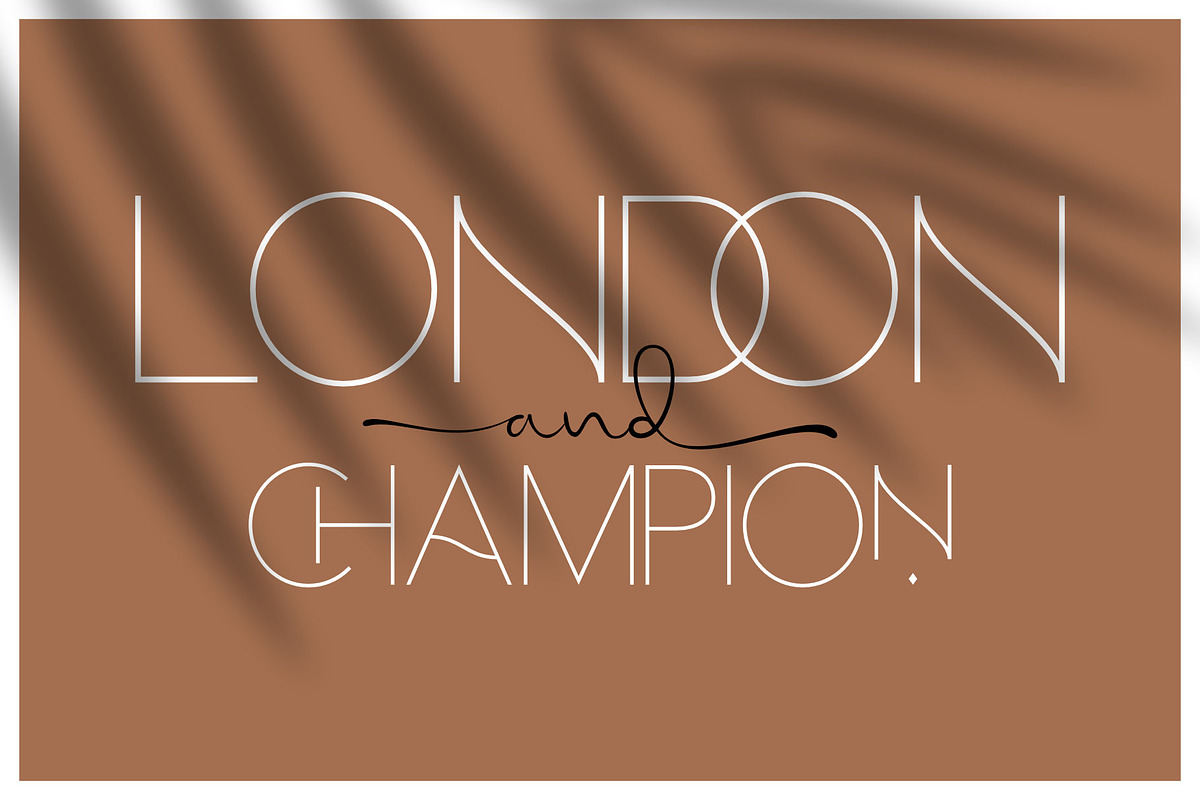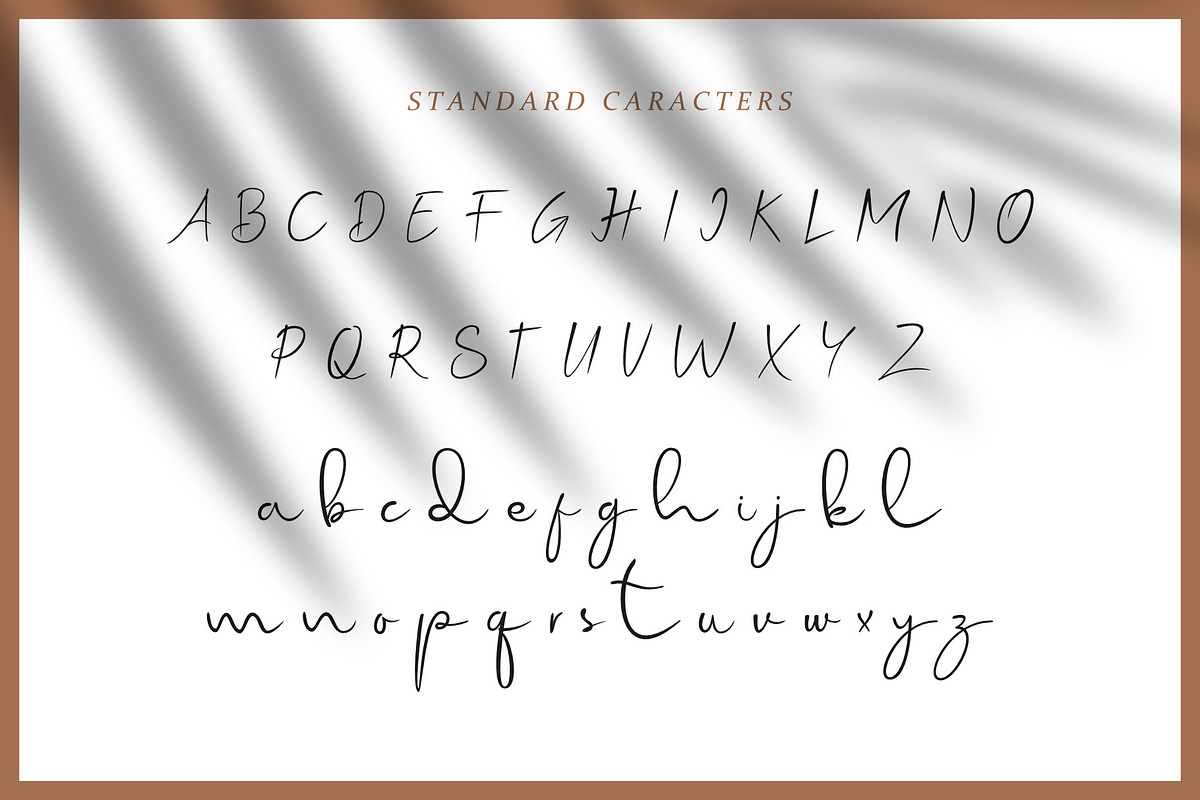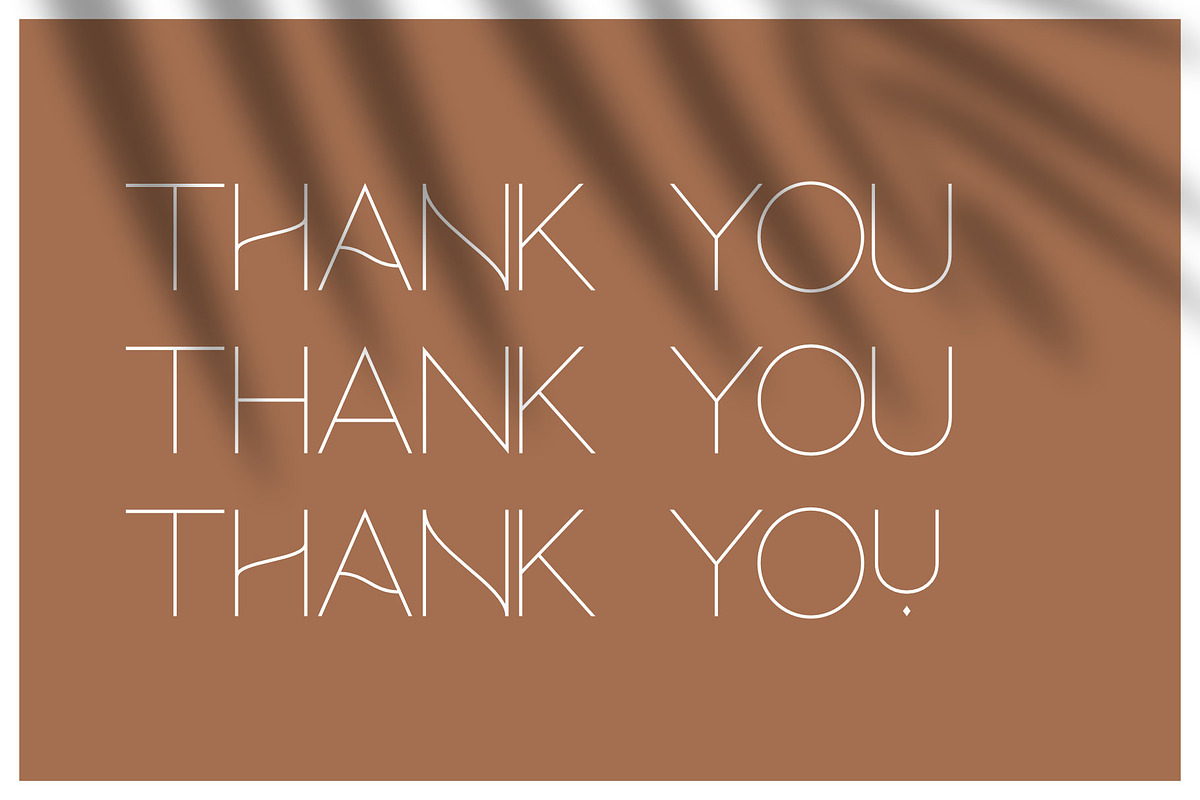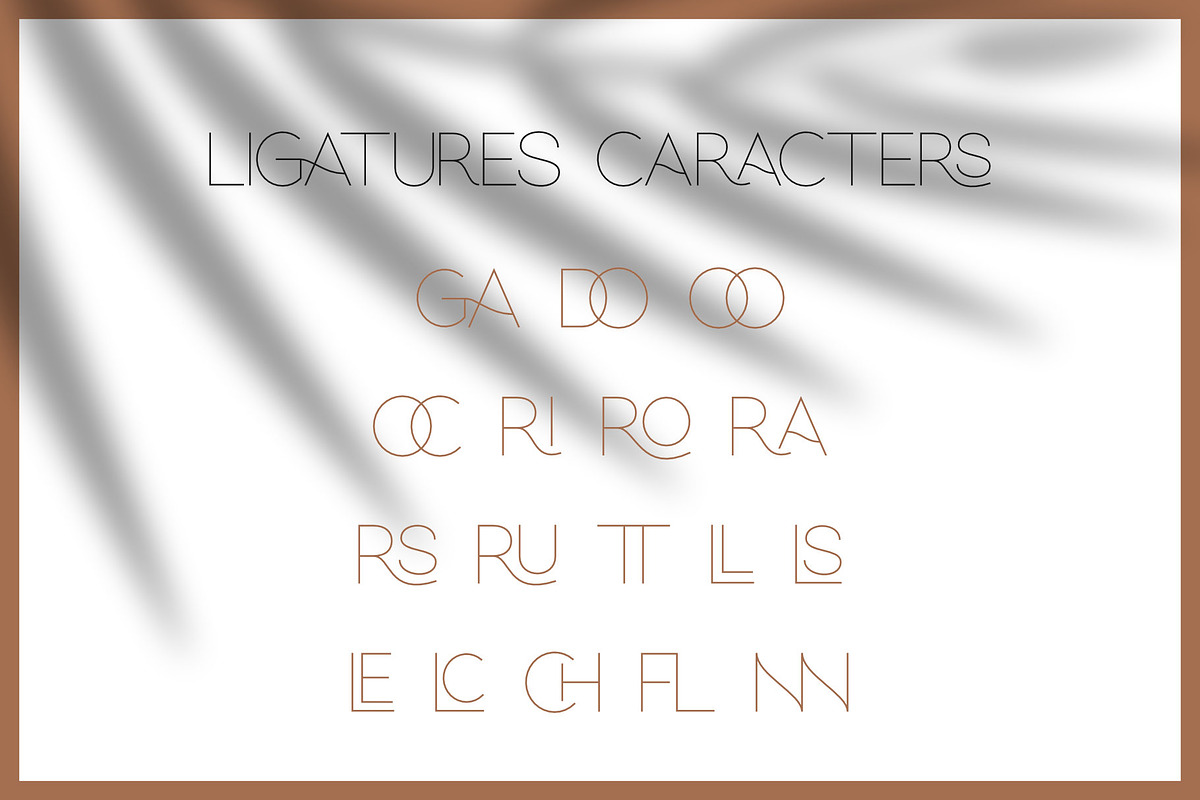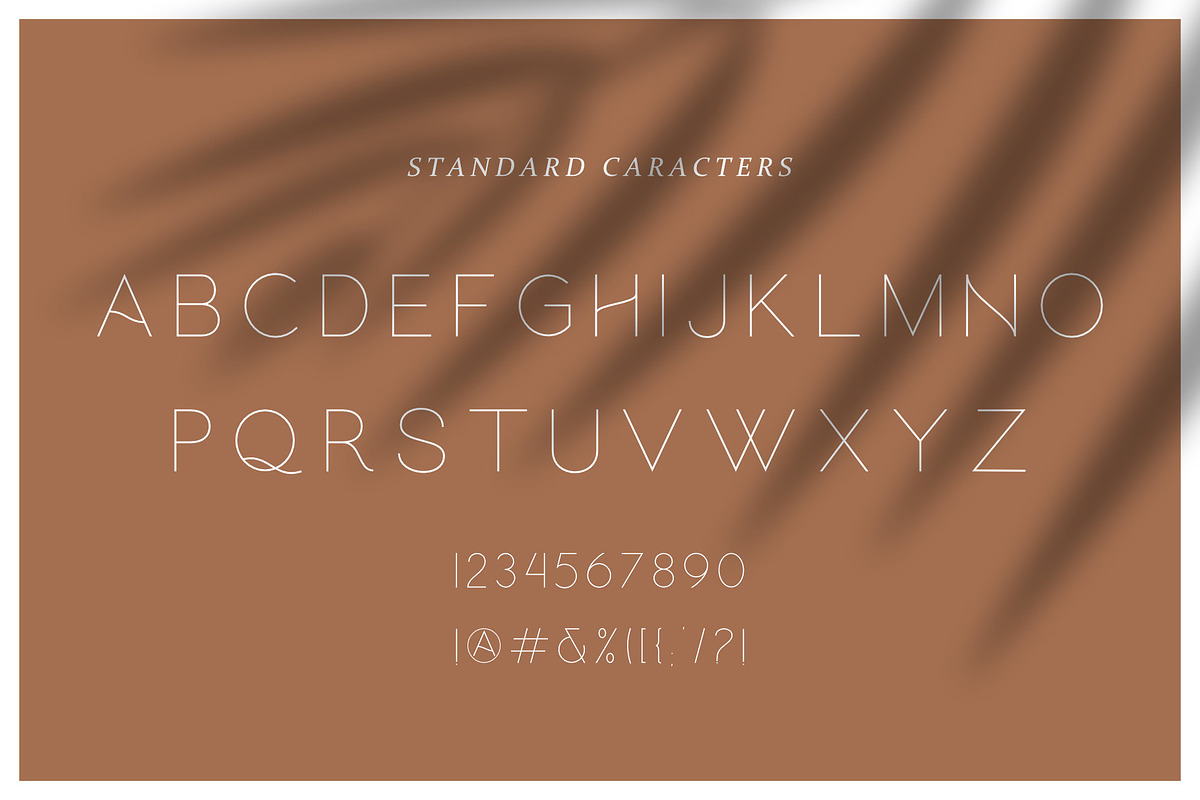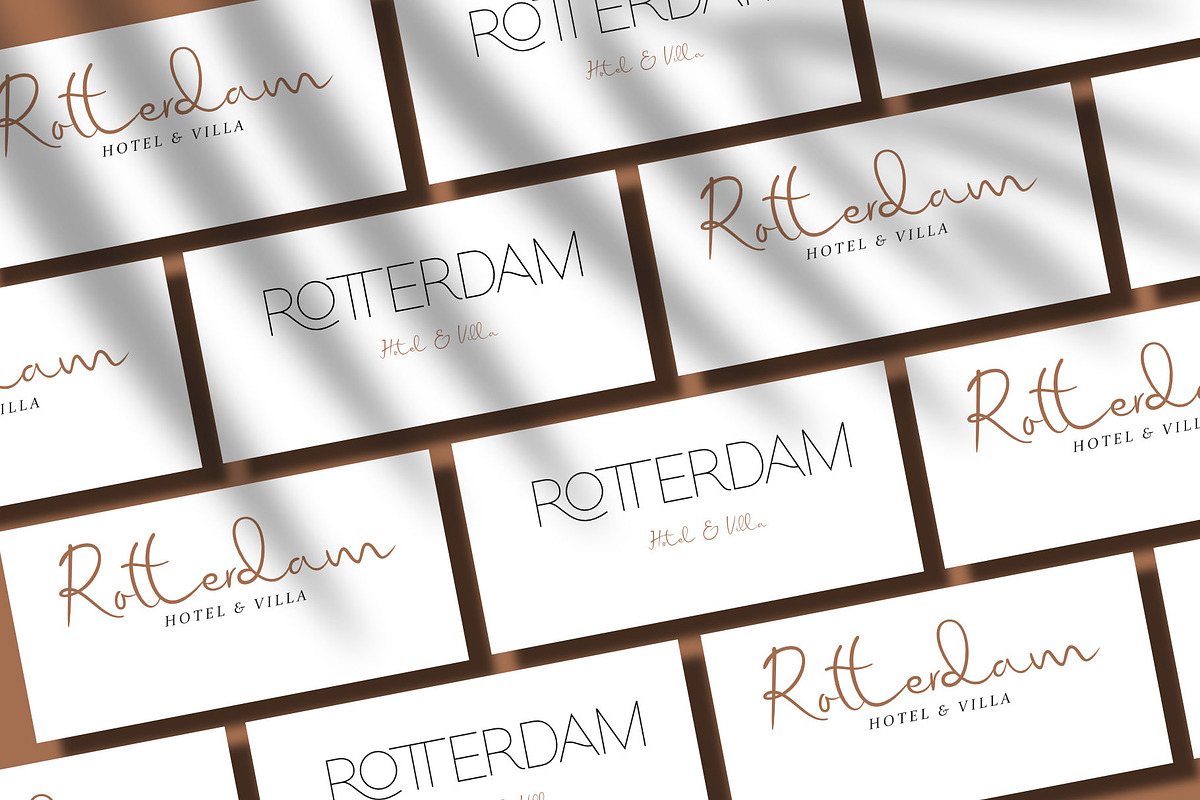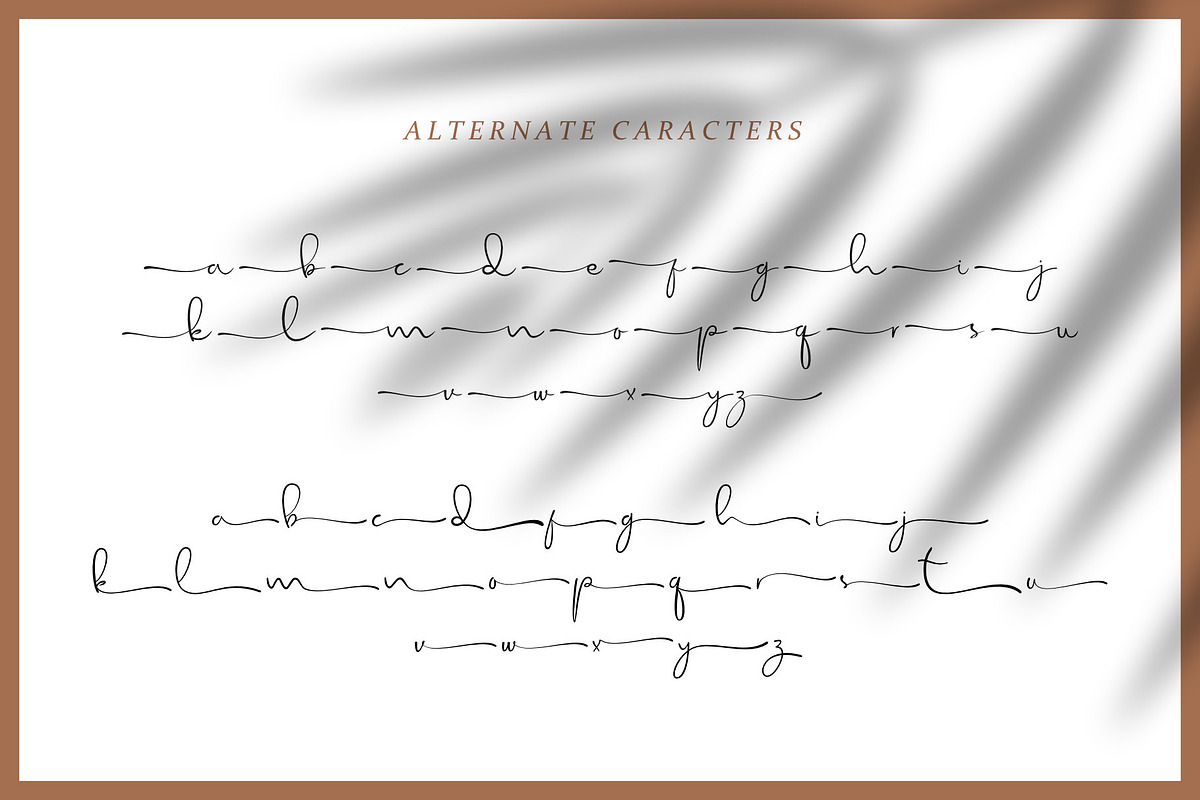
Hello Galleria Modern Elegant Font
Hello Galleria is a chic and versatile font duo that perfectly blends modern elegance with a touch of vintage charm. Featuring a clean, geometric sans serif and a stylish handwritten script, this set is designed for creative branding, standout logos, and everything from fashion to wedding designs.
The sans serif brings a bold, minimal feel—sleek, structured, and perfect for modern logo work. Paired with the soft, grunge-inspired script, it adds a handwritten edge that feels both luxurious and approachable. Whether you're going for retro stamp-style vibes or polished luxury branding, Hello Galleria has the flexibility to do it all.
Perfect for high-end fashion, boutique brands, or elegant wedding stationery, this elegant font duo is your go-to for blending elegance, personality, and visual impact in one cohesive design.
Hello Galleria Modern Elegant Font by Andika Fez fits naturally into Branding, posters, packaging, typography.